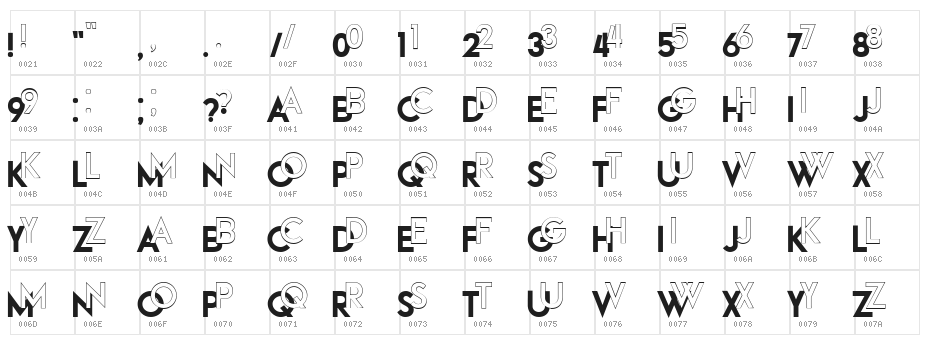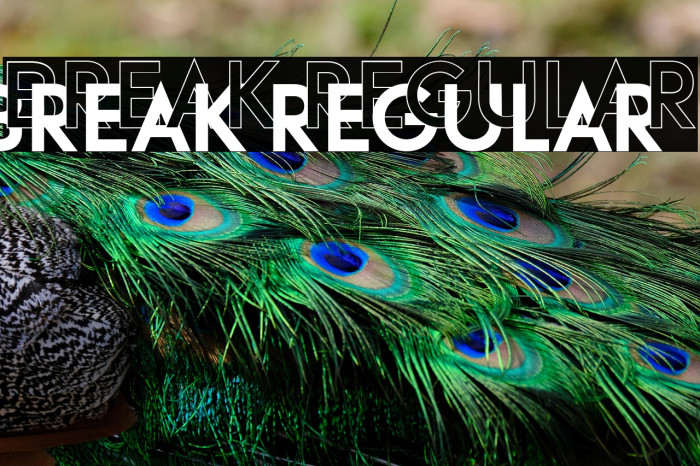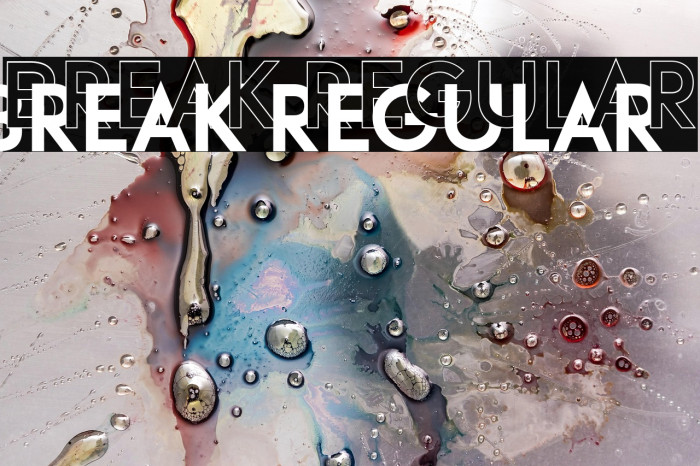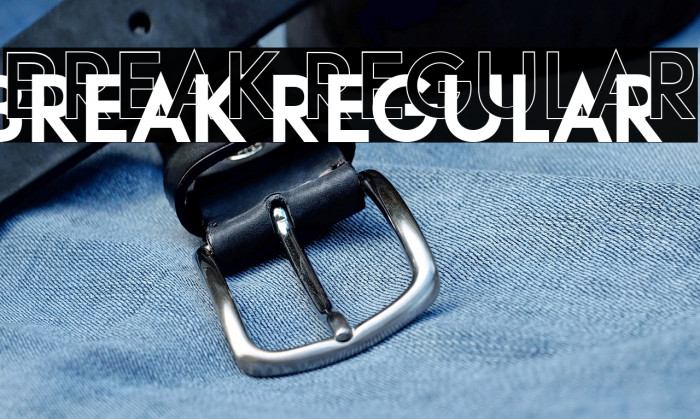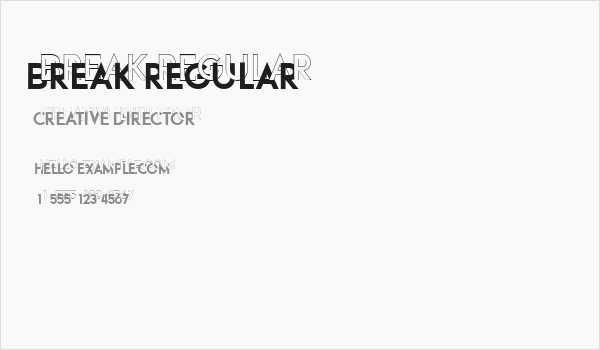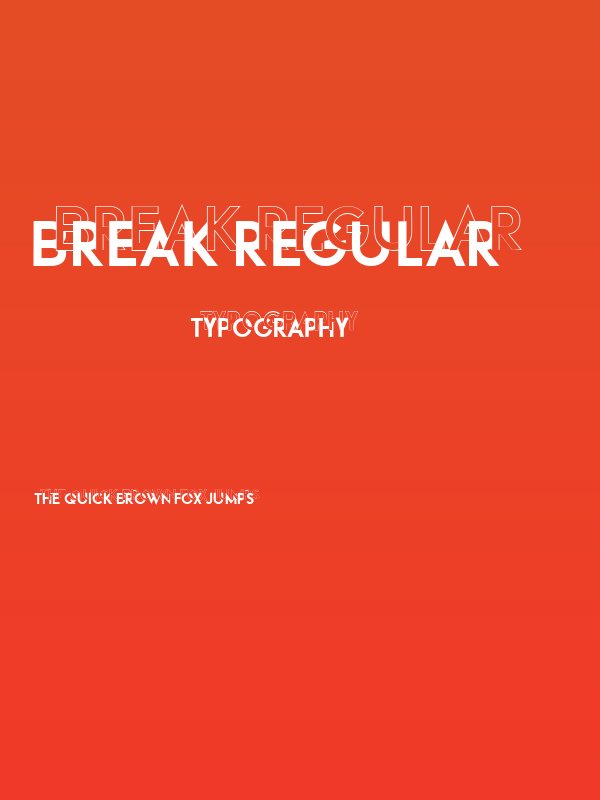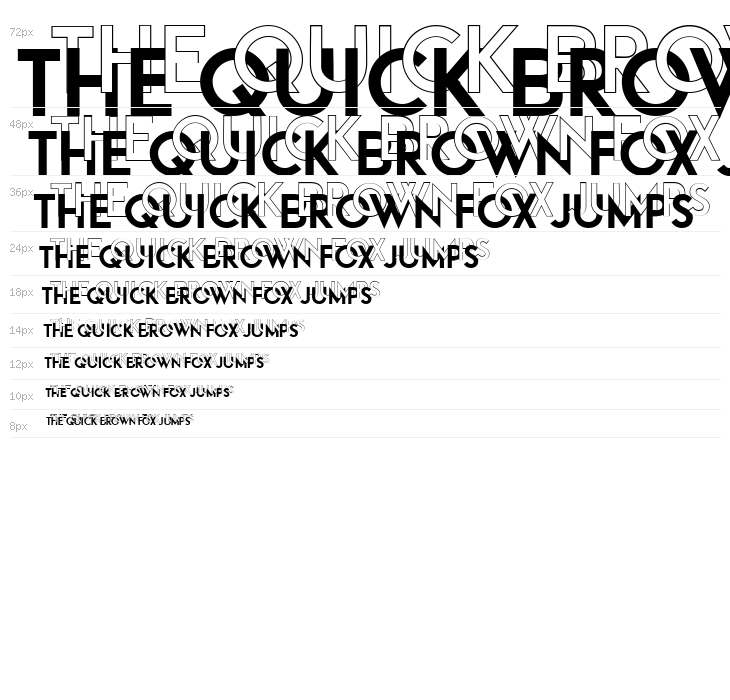
Break Regular Font
Break Regular Description
This font features a bold and striking design with a modern aesthetic. The uppercase and lowercase letters are crafted with a clean, geometric style, emphasizing strong lines and sharp angles. The numbers and special characters maintain this cohesive look, ensuring versatility across various applications. The font's structure is both contemporary and functional, making it suitable for a wide range of design projects. Its bold presence is balanced by a clear and legible form, ideal for making impactful statements in both digital and print media.
| Proposed Projects | Ideal for branding, advertising, headlines, and digital media projects where a strong visual impact is needed. |